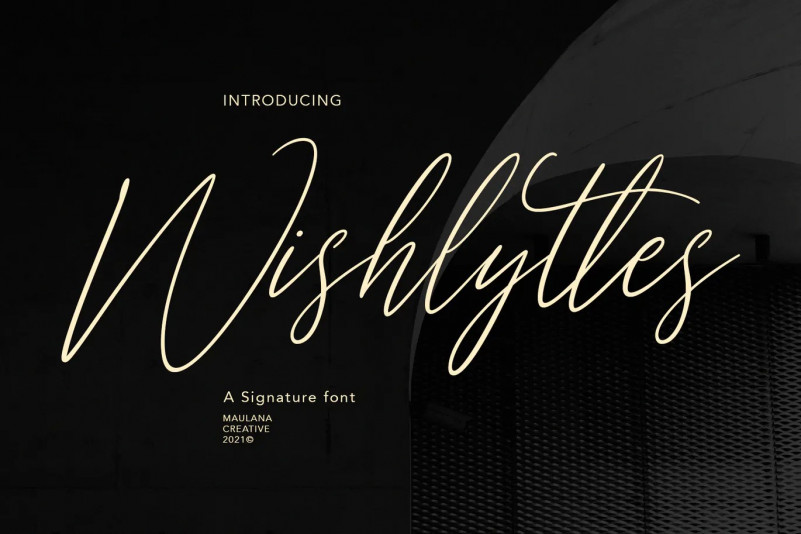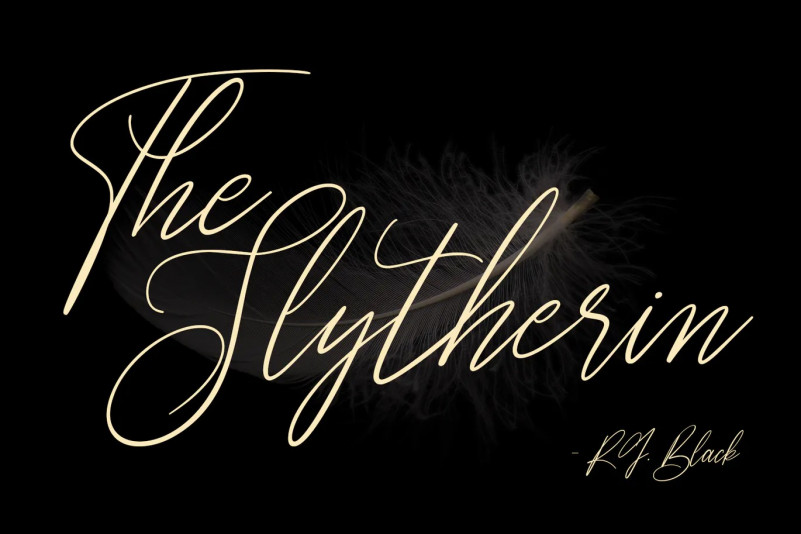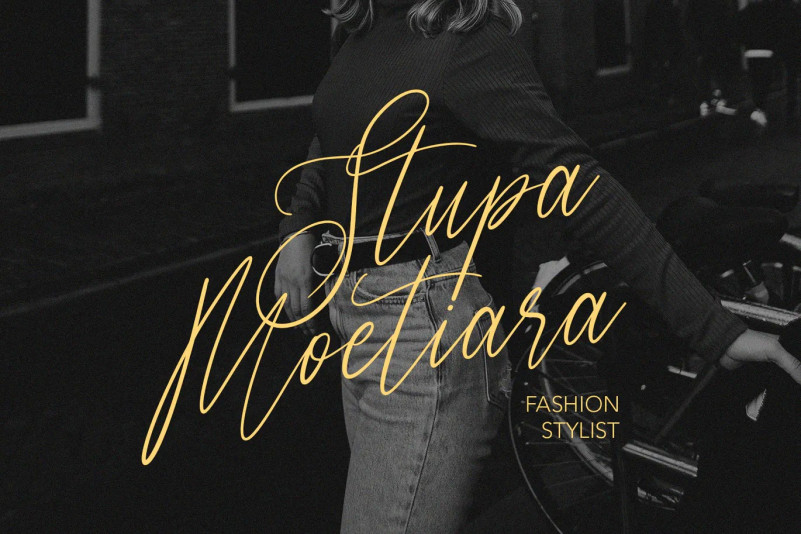
Wishlyttes Font
Wishlyttes is a fancy signature script font, with thin stroke, it super slanted, condensed and fun characters. It has Opentype features of ligatures, makes it a perfect choice for branding and digital designs. Use this font for logos, social media, websites, blogs, instagram, social media, business cards, branding, and more! Wishlyttes font support multilingual more than 100+ language. and good pair for your secondary text font with sans or serif. Make a stunning work with Wishlyttes signature font.